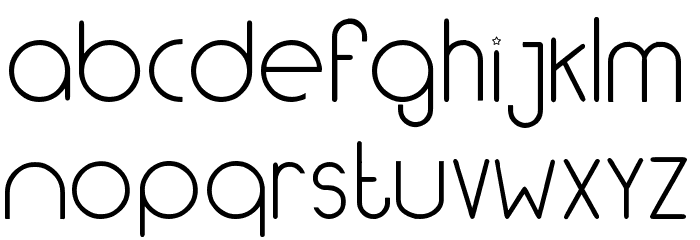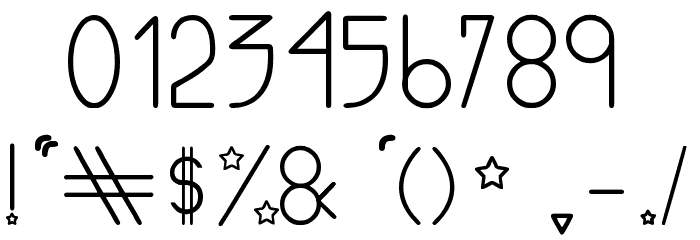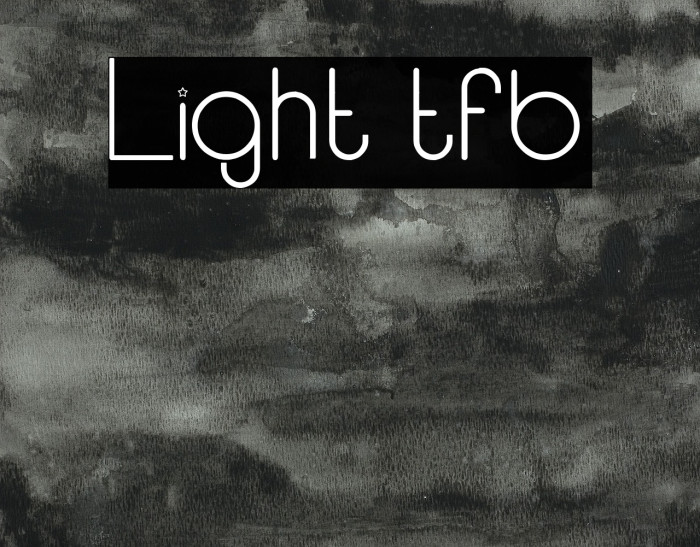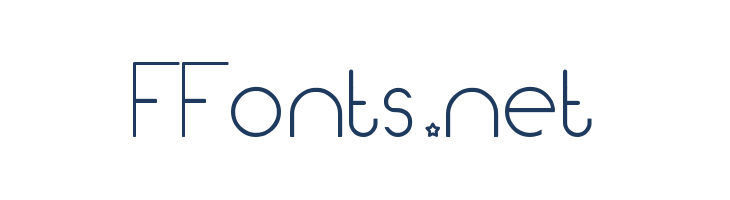
Light tfb Font
This font features a clean, geometric design with a modern aesthetic. The characters are formed with consistent line thickness, creating a uniform appearance. The uppercase letters are tall and narrow, while the lowercase letters maintain a rounded, approachable look. The numerals are distinct and easy to read, with a similar geometric style. Special characters are included, adding versatility for various design needs. The overall look is sleek and minimalistic, making it suitable for contemporary projects.
A modern, geometric font with clean lines and a minimalistic style.